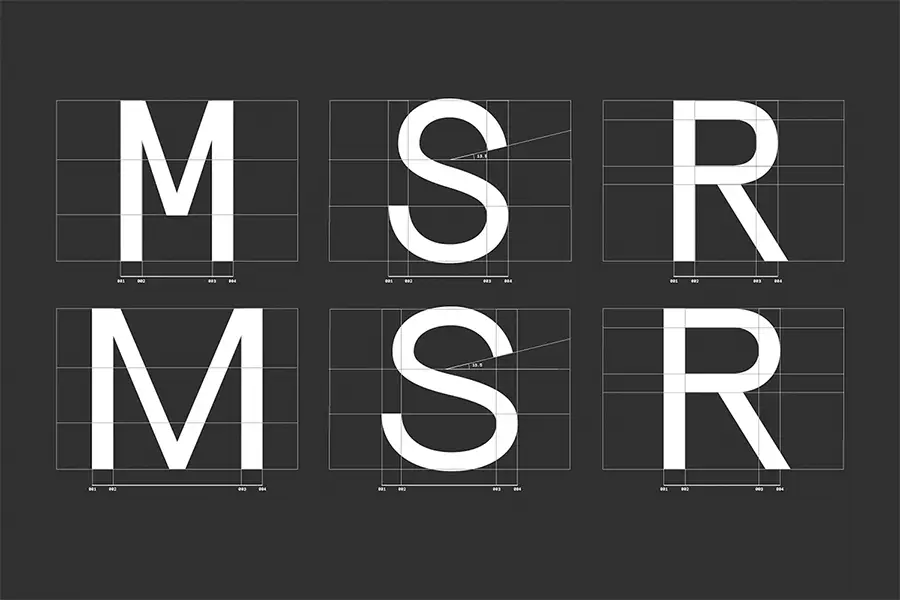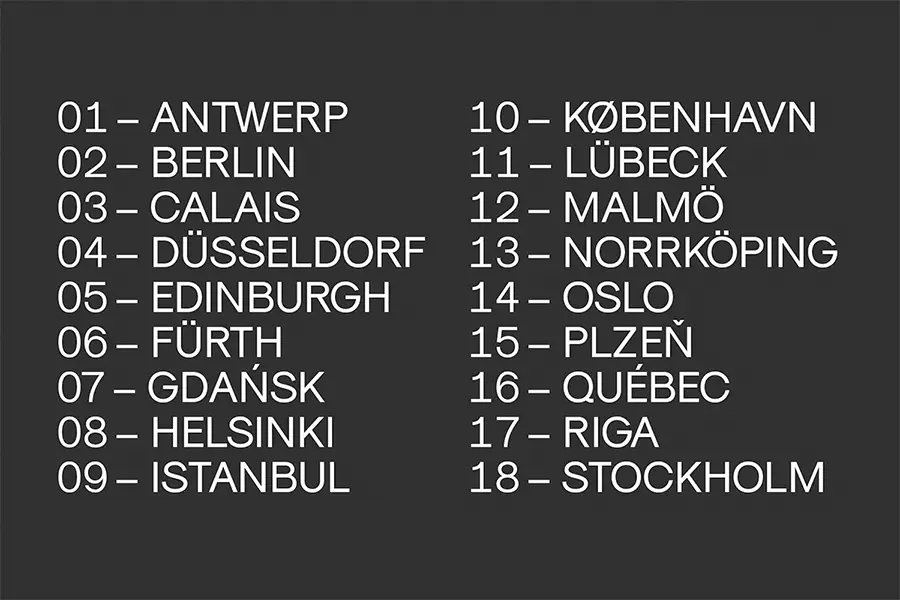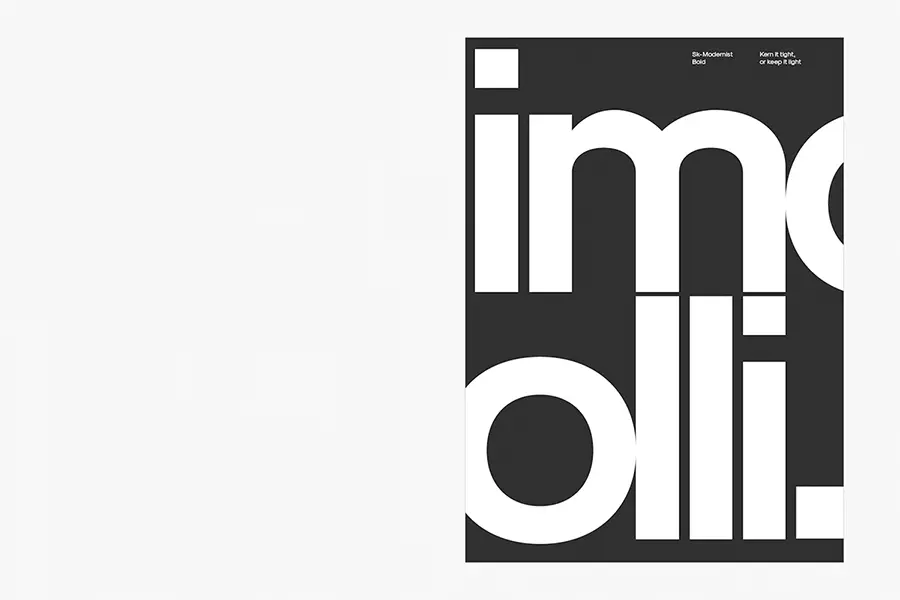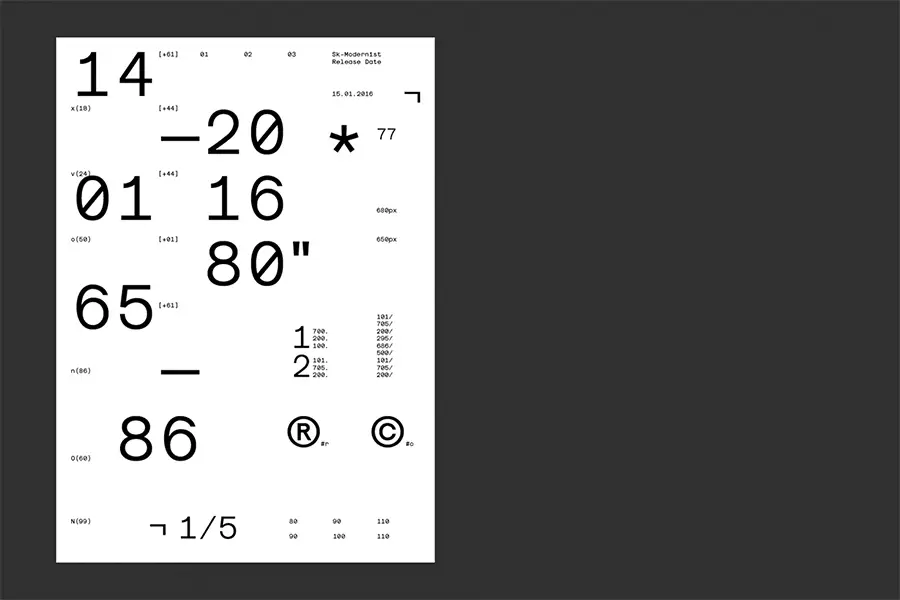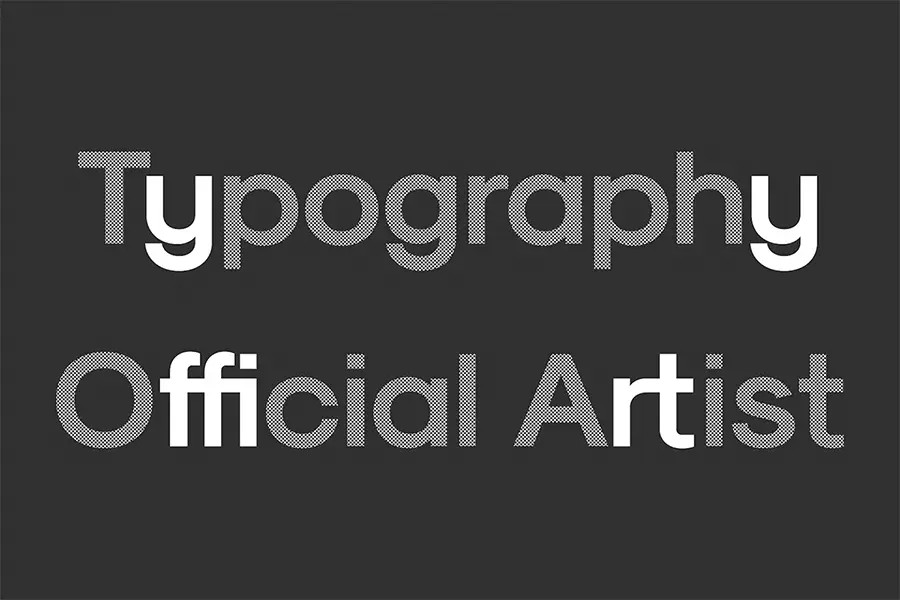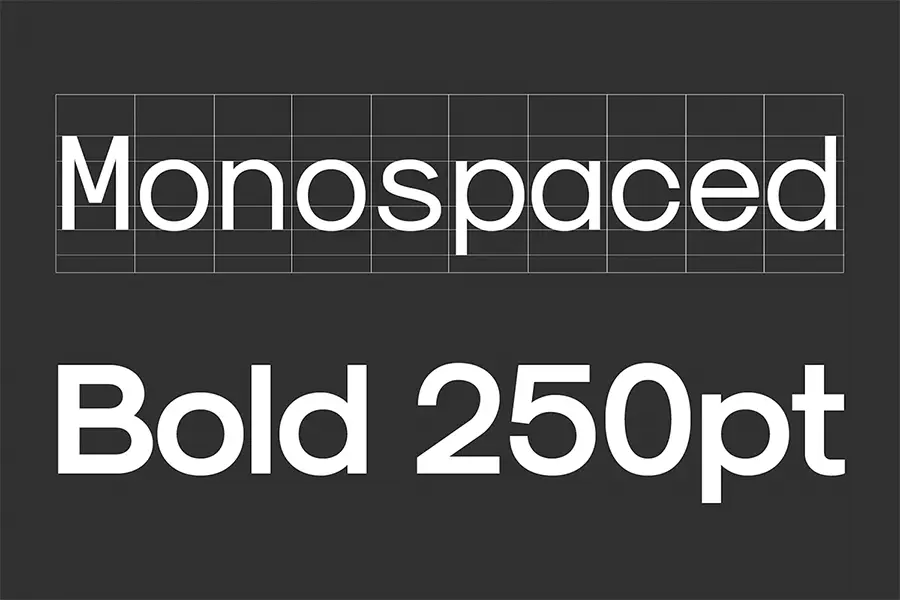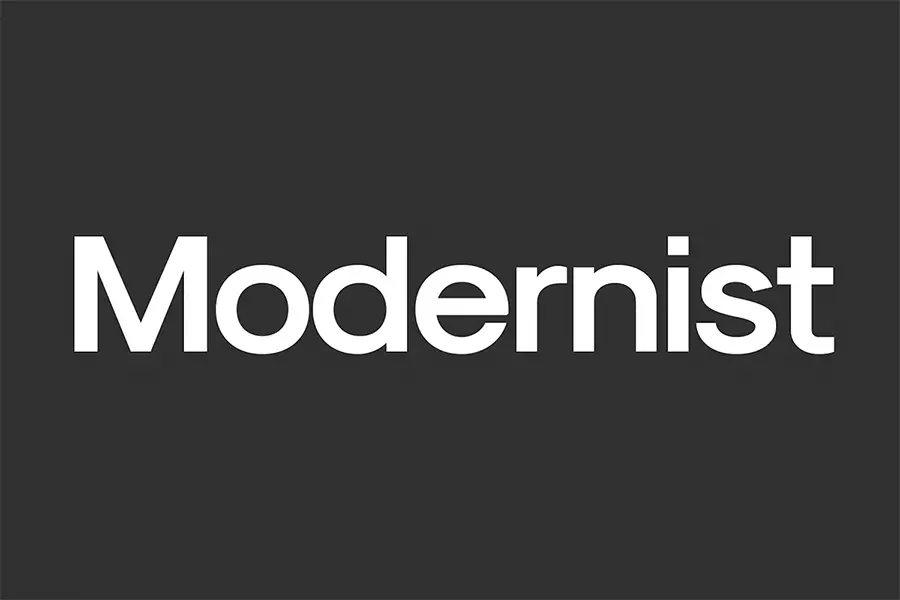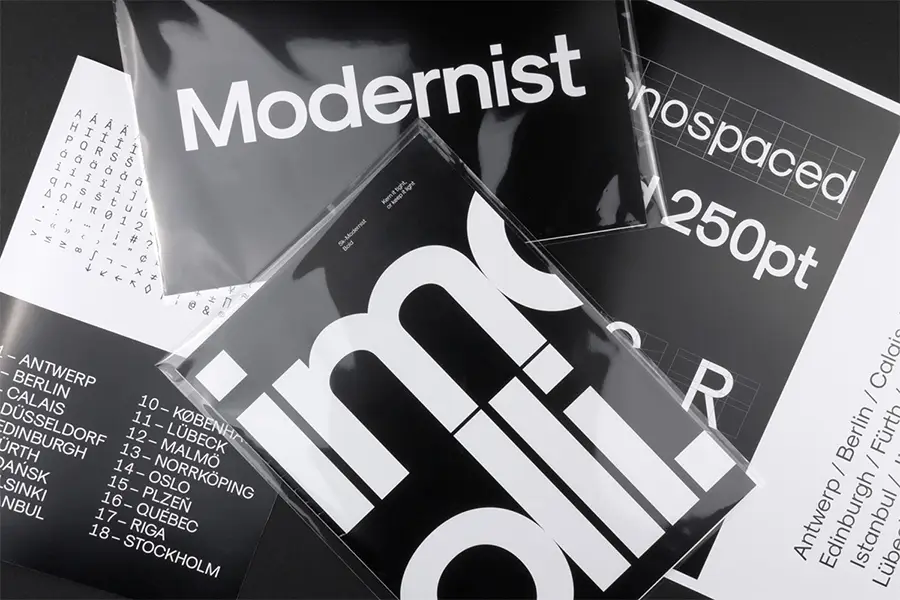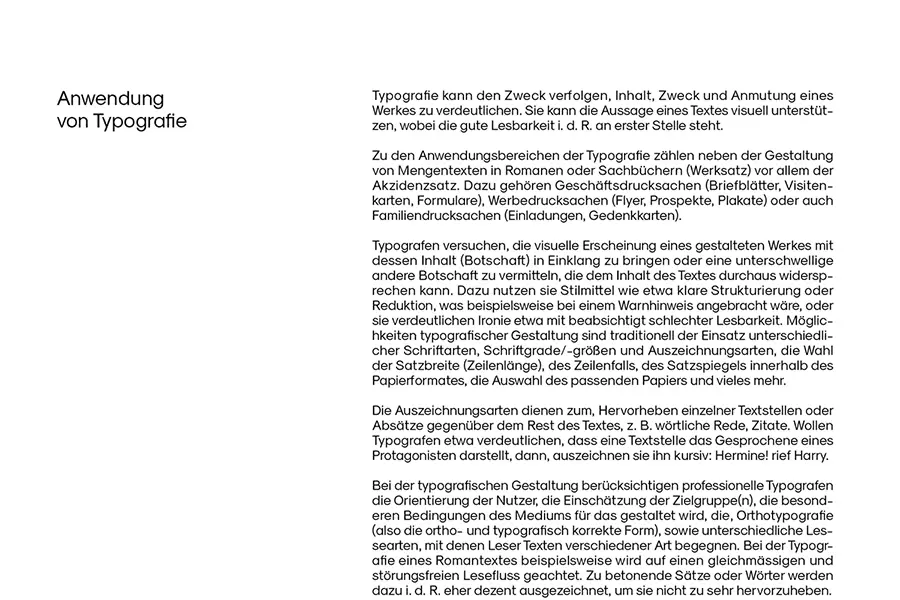
The Modernist Font is a sleek and contemporary typeface designed to elevate your creative projects. With its clean lines and geometric shapes, this font is perfect for a variety of applications, including branding, logos, web design, and print materials.
- Ideal for modern branding and advertising.
- Use for headlines and body text to maintain a cohesive look.
- Pair with complementary fonts for added depth in your designs.